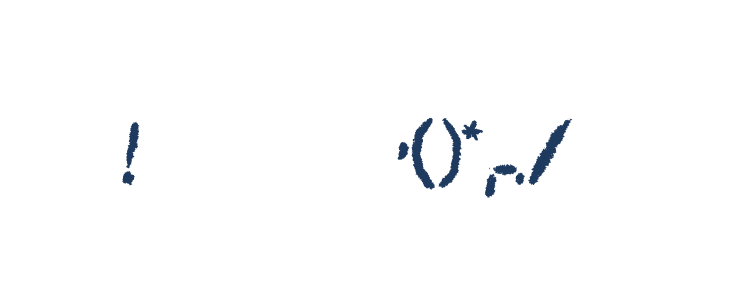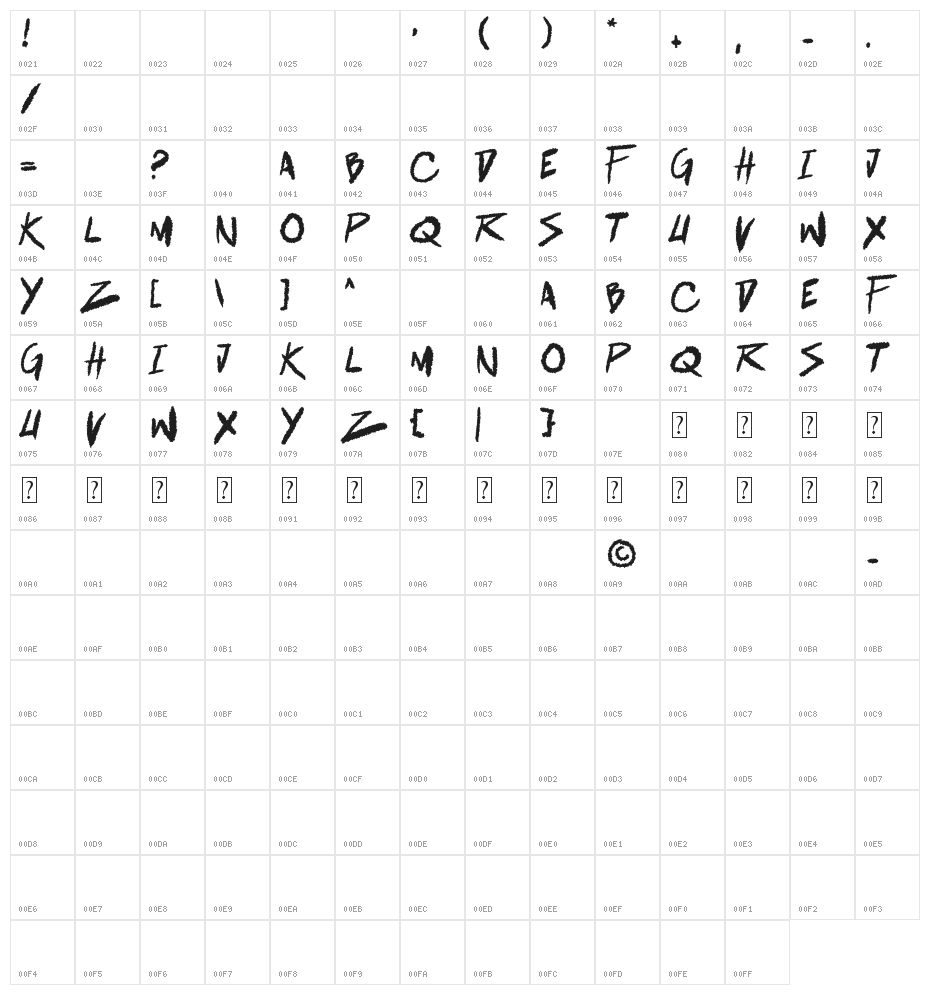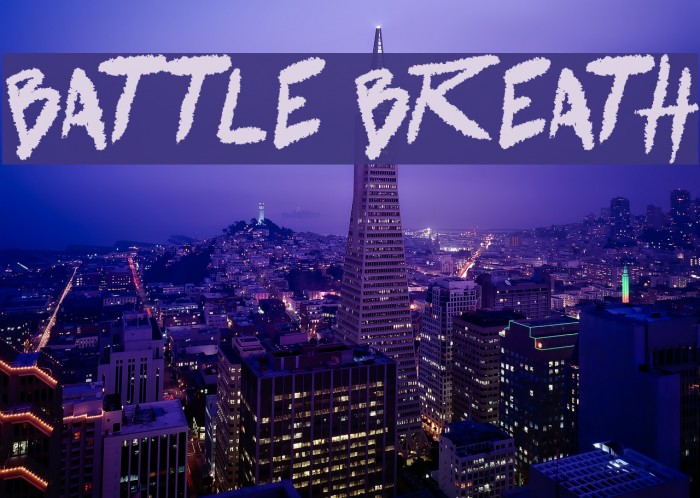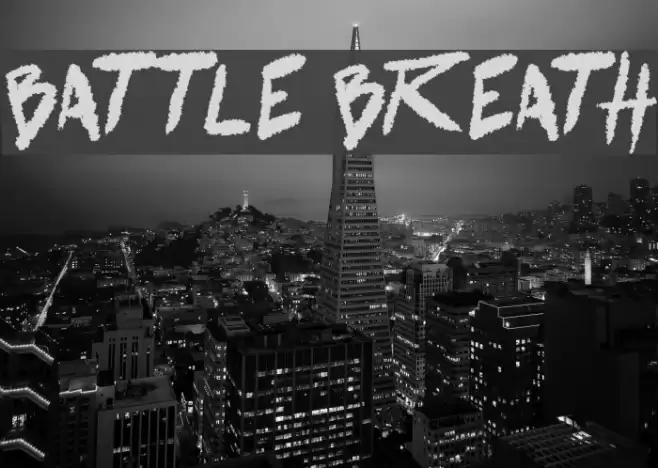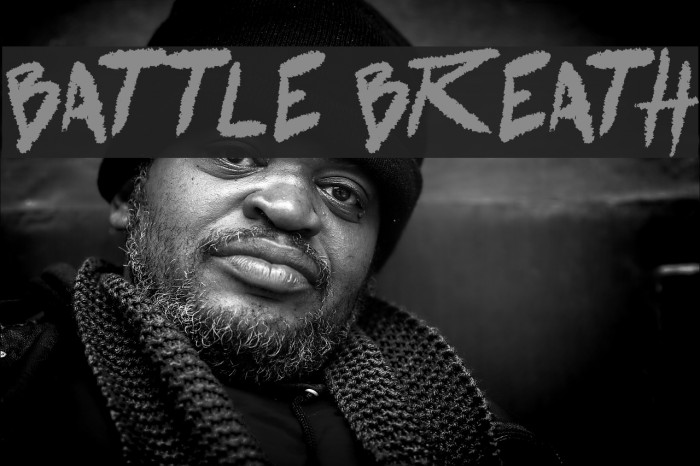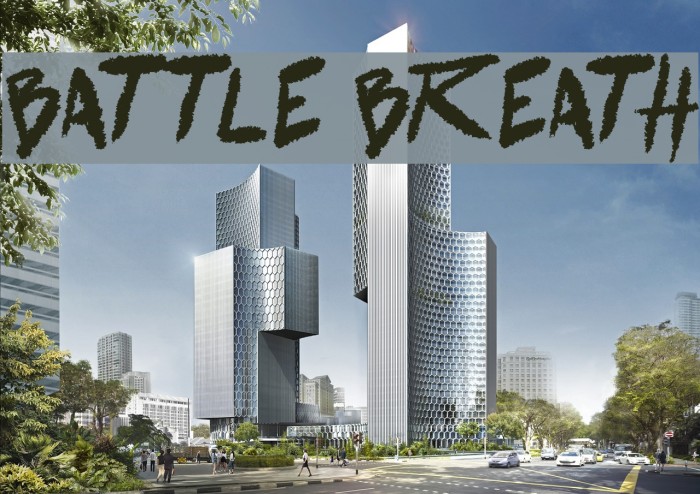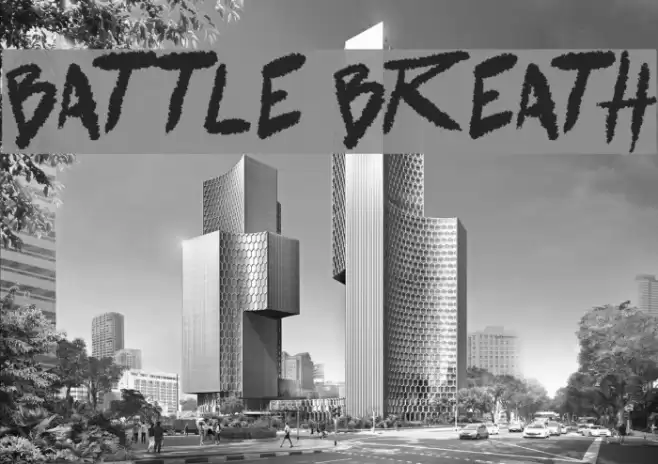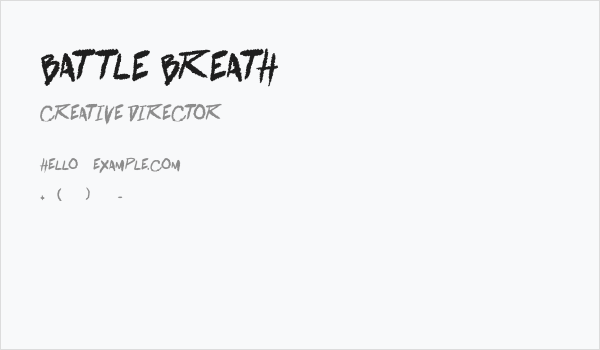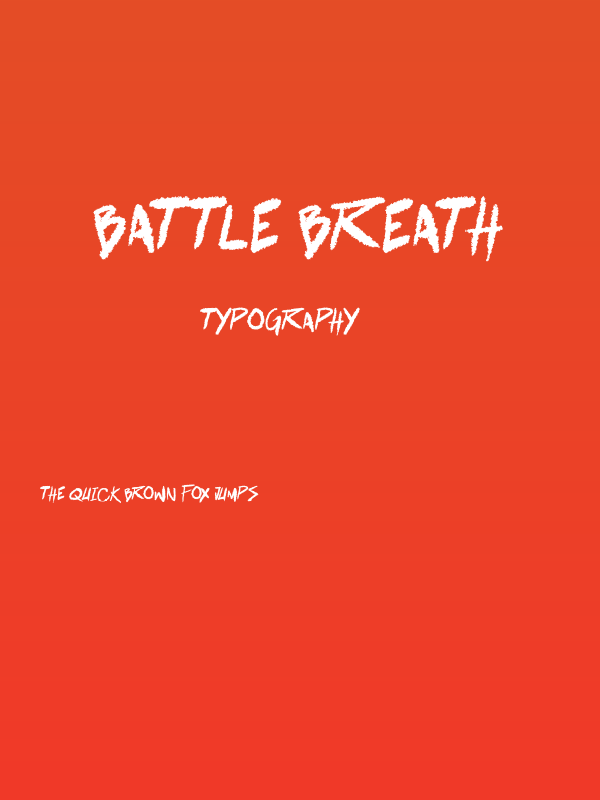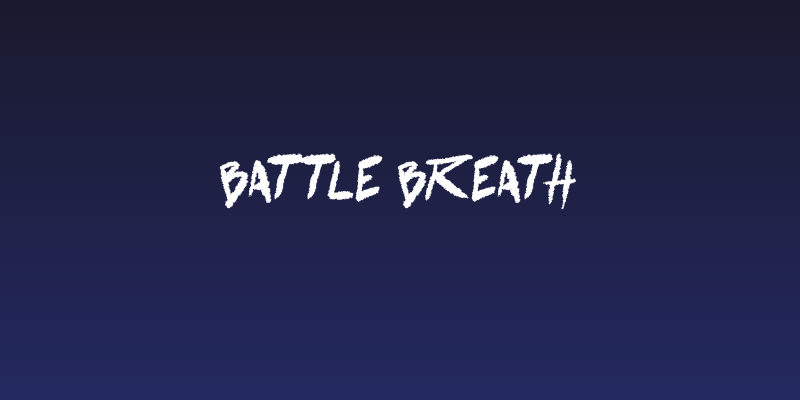
battle breath Font
battle breath Description
This font features a bold, energetic style with a hand-drawn appearance. The letters are characterized by sharp, angular strokes and a slightly irregular baseline, giving it a dynamic and edgy feel. The uppercase and lowercase letters maintain a consistent style, with a rough texture that adds to its raw and expressive nature. The special characters complement the overall aesthetic, enhancing its versatility. This font is ideal for projects that require a strong, impactful visual presence.
| Proposed Projects | Perfect for music album covers, graffiti art, posters, and edgy branding projects. |